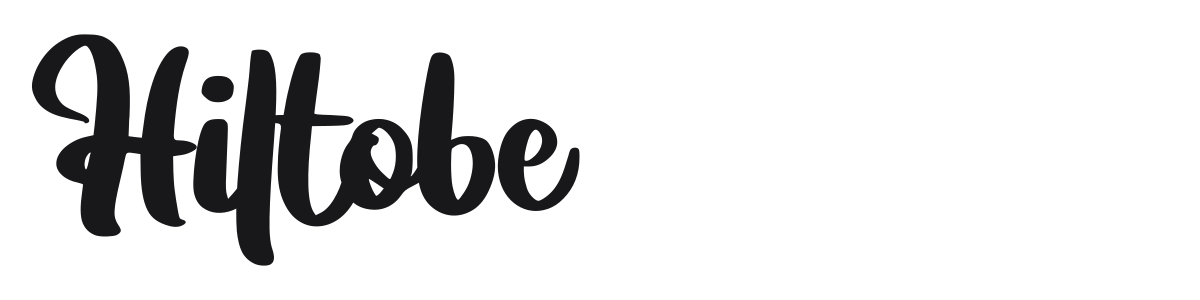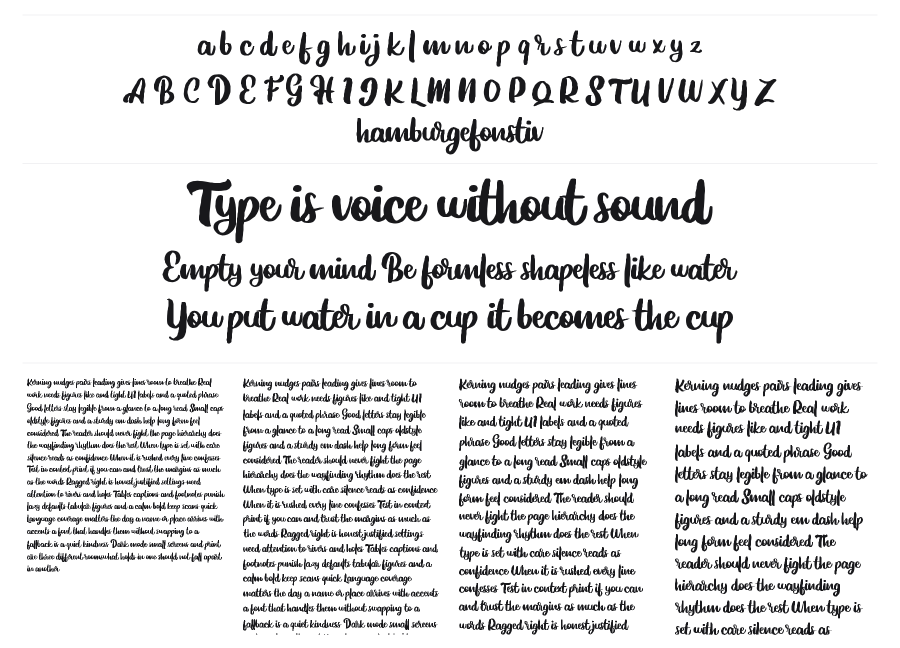
Hiltobe
Hiltobe is a bold brush script with confident, flowing strokes and a natural handmade energy. Smooth letter connections and rounded terminals keep it feeling approachable without losing legibility at headline sizes. It carries the spirit of classic sign-painting with a clean contemporary finish.